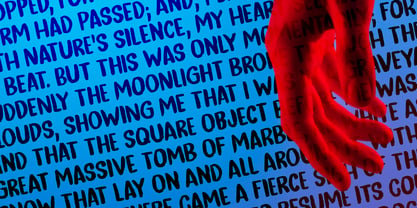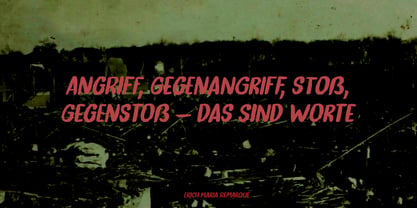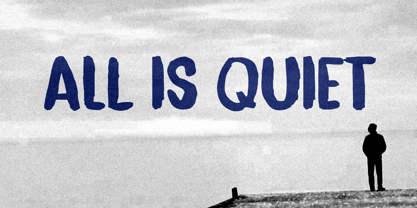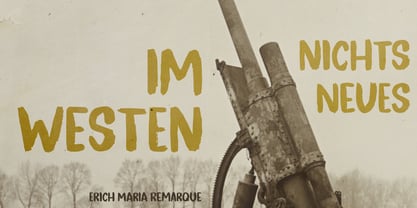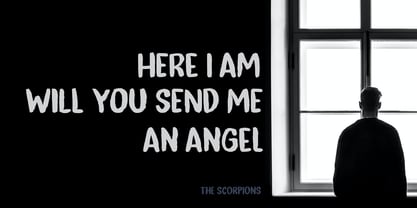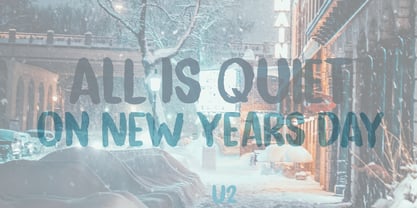
All Is Quiet Pro
A família de fontes All Is Quiet Pro foi desenhada por David Kerkhoff e publicada pela Hanoded. All Is Quiet Pro contém 2 estilos e opções de pacote familiar. Saiba mais sobre esta família
The year 2022 went and 2023 came. I can honestly say that last year was a horrible year and I am happy it ended a couple of days ago. The first week after New Year’s Eve always fills my head with the U2 song ‘New Year’s Day’ - so I named this font after a line from the lyrics. I also happened to watch a fantastic movie called ‘Im Westen Nights Neues’, directed by Edward Berger, but based on a book by Erich Maria Remarque, which, in English, was published as ‘All Quiet On The Western Front’.
All Is Quiet is a lovely brush font, which I created using my father in law’s Chinese pencil and ink. I can suggest some uses here, but I am convinced you can come up with that yourself.
Designers: David Kerkhoff
Hanoded is run by Dutchman David Kerkhoff. His fonts are a mishmash of styles, as he just creates whatever pops into his head. You will find a lot of brush fonts in his collection, as his favourite tools are brushes and Chinese ink, with cartoon style fonts and script fonts complementing his repertoire. Aside from making fonts, David occasionally guides tours in far-flung places, renovates his '30's house and tries reasoning with his wife and (teenage) kids. Not an easy task!